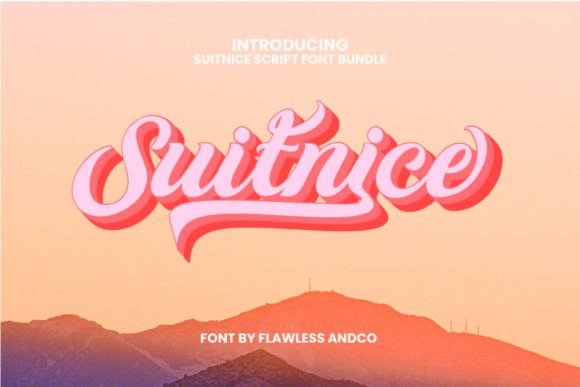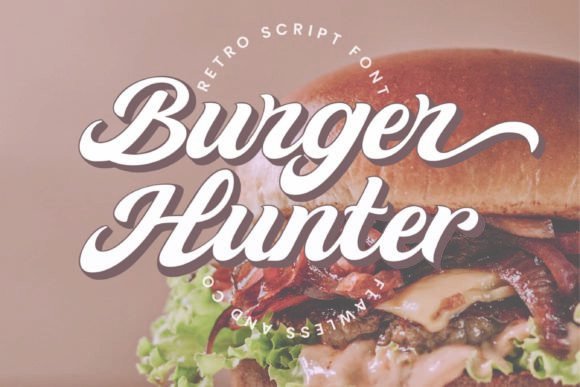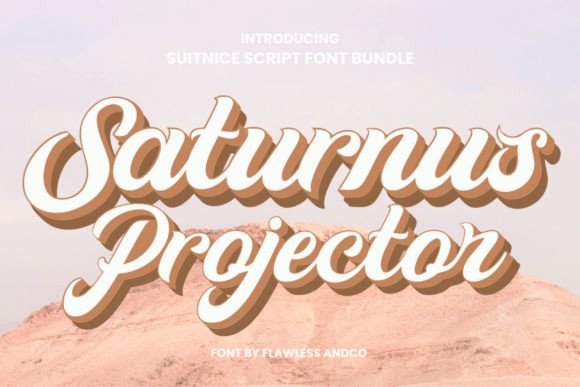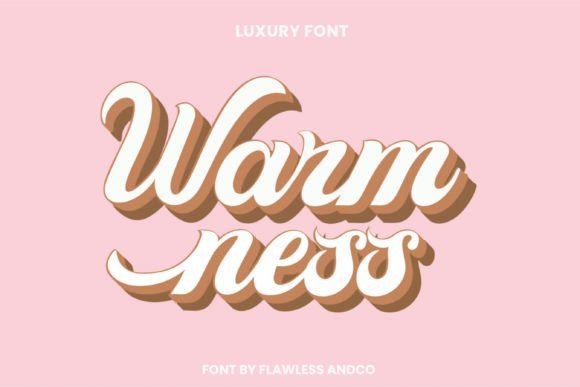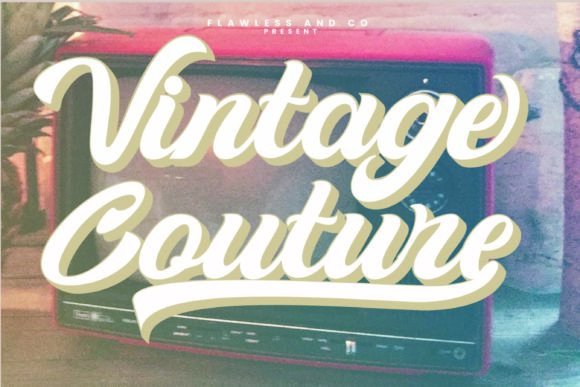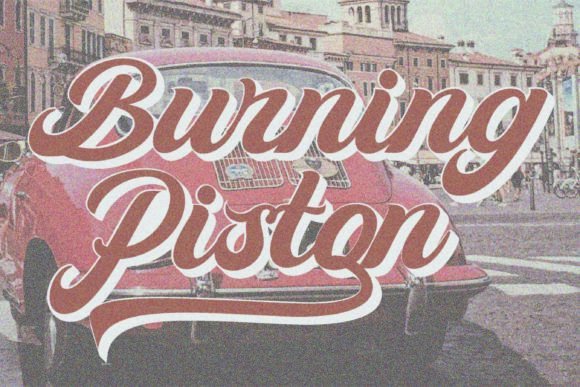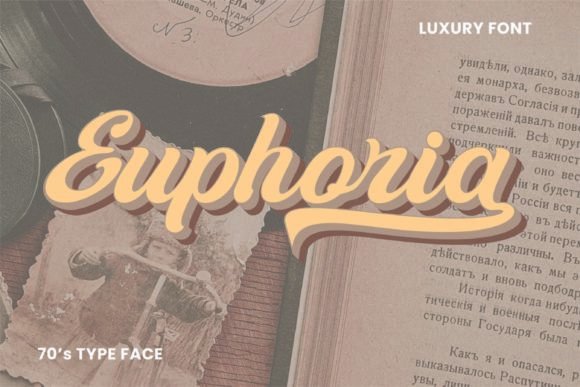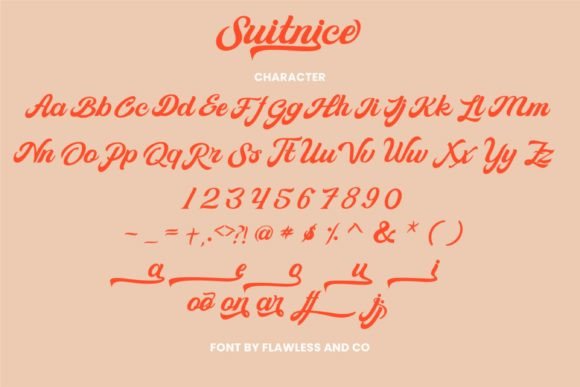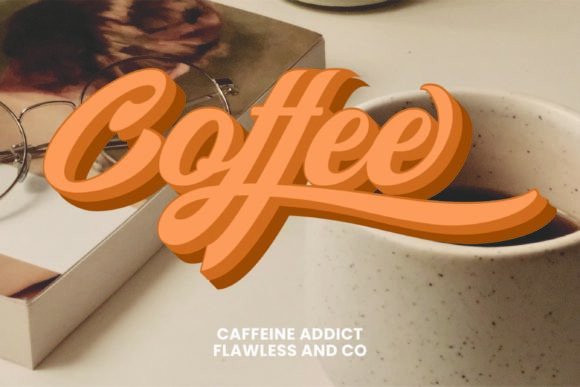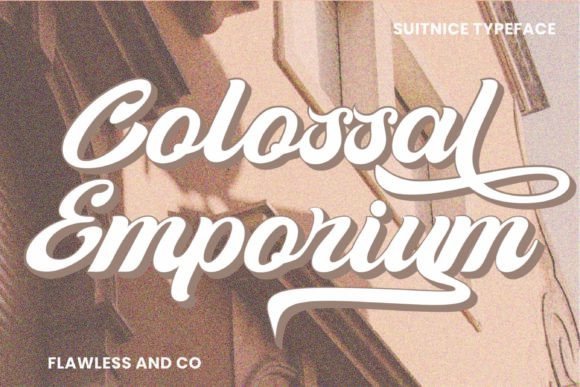
Suitnice Font
Add a retro and groovy vibe to your designs with the Suitnice font. This script font is masterfully designed to become a true favorite. It has the potential to elevate every creative idea to the highest level.
The Suitnice font stands out with its unique and stylish retro style. Perfect for branding, logos, posters, invitations, social media posts, and much more. Its groovy curves add personality and charm to your projects.
This font balances artistic flair with readability, making it ideal for headlines, quotes, logos, and decorative text.
Despite its retro style, the Suitnice font remains highly readable at various sizes. Whether used for bold titles or subtle accents, it adapts perfectly. Its flexibility makes it an excellent choice for many creative projects.
Using this font will help your designs stand out with a vintage yet fresh feel. If you want your work to look unique and memorable, the Suitnice font is an excellent choice.
In summary, the Suitnice font fits many creative needs. From branding and social media to invitations and posters, it brings retro charm and groovy style. Download it today and create stunning, stylish designs with a retro script font.